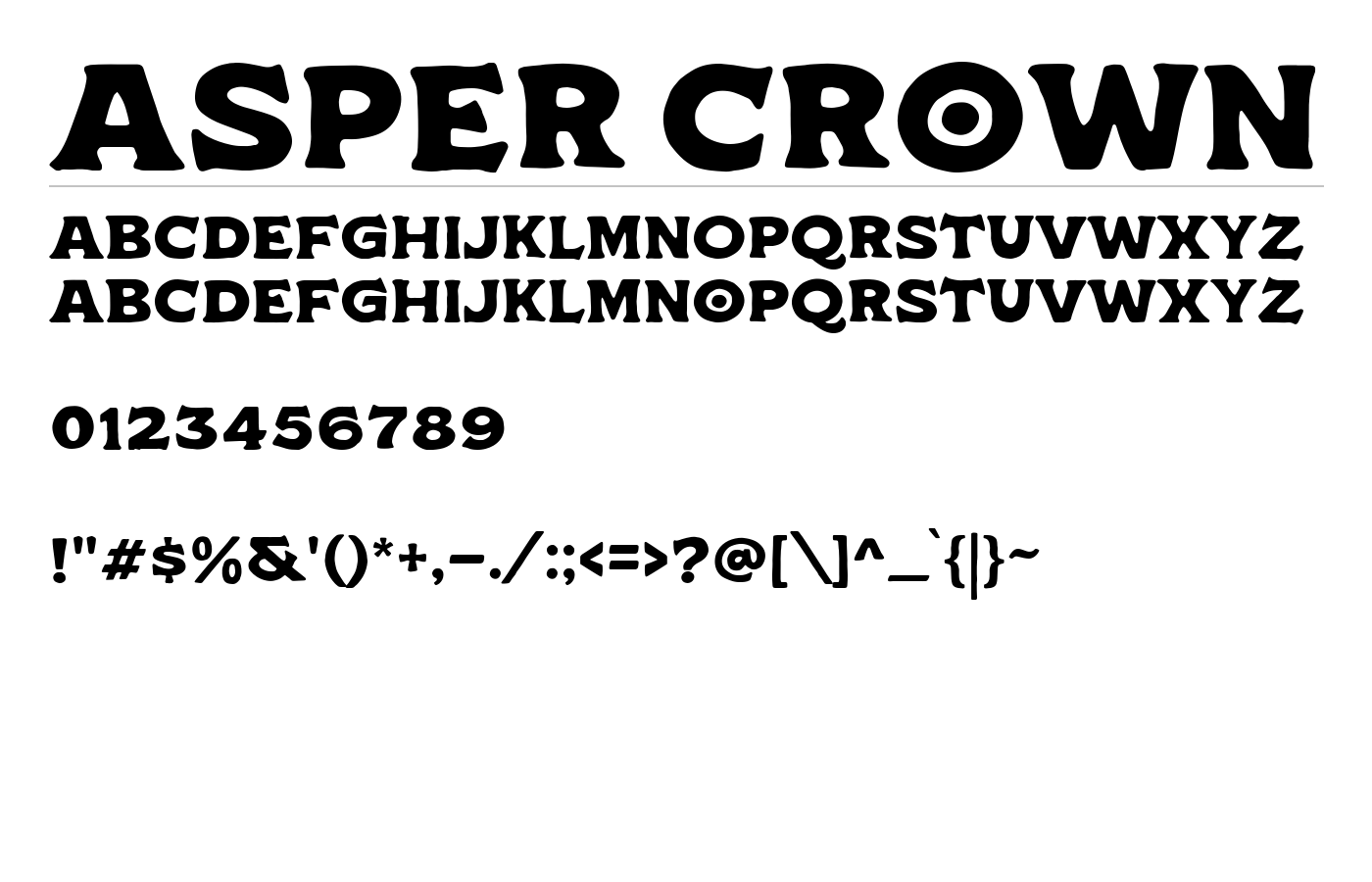
Asper Crown is a bold, playful serif font with a chunky, slightly irregular design that adds a hand-crafted feel to its strong presence. Its high x-height and unique letter shapes give it an energetic and quirky personality, making it perfect for lively headlines, branding, and creative projects that need a touch of fun and character. This font works well where a distinctive and inviting look is desired, such as posters, logos, and packaging.
Asper Crown Font
About Asper Crown Font